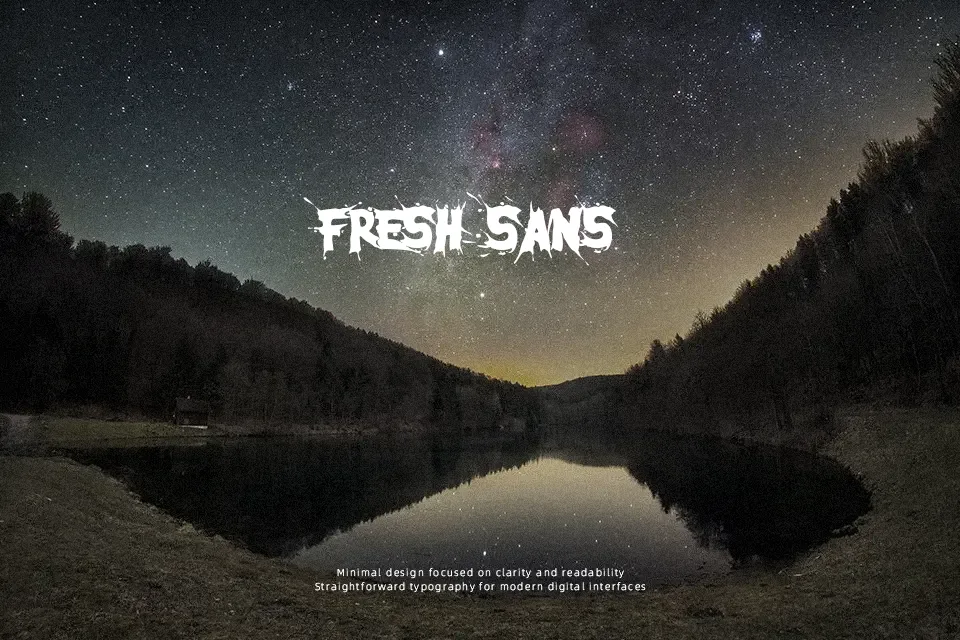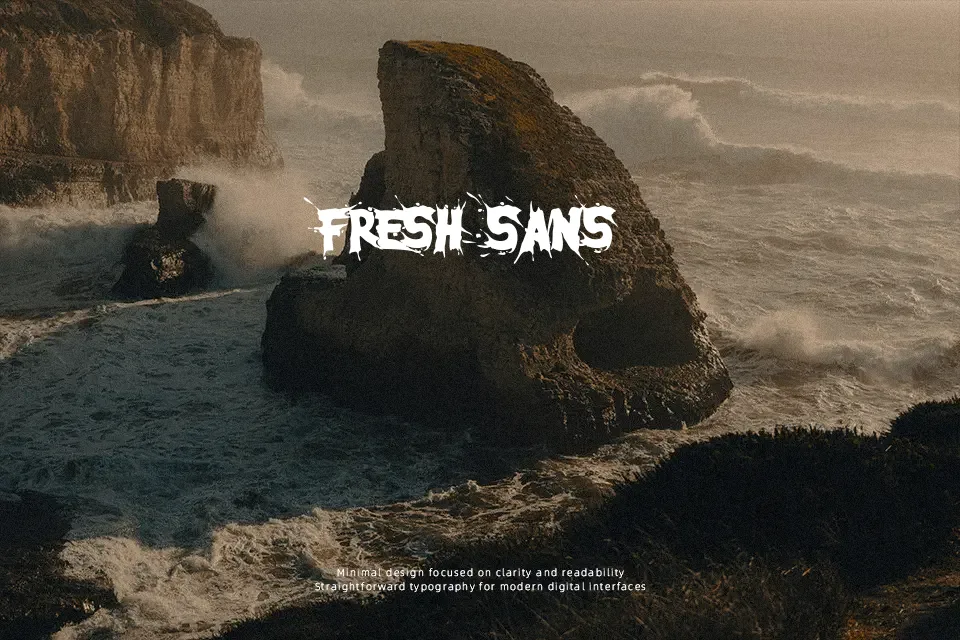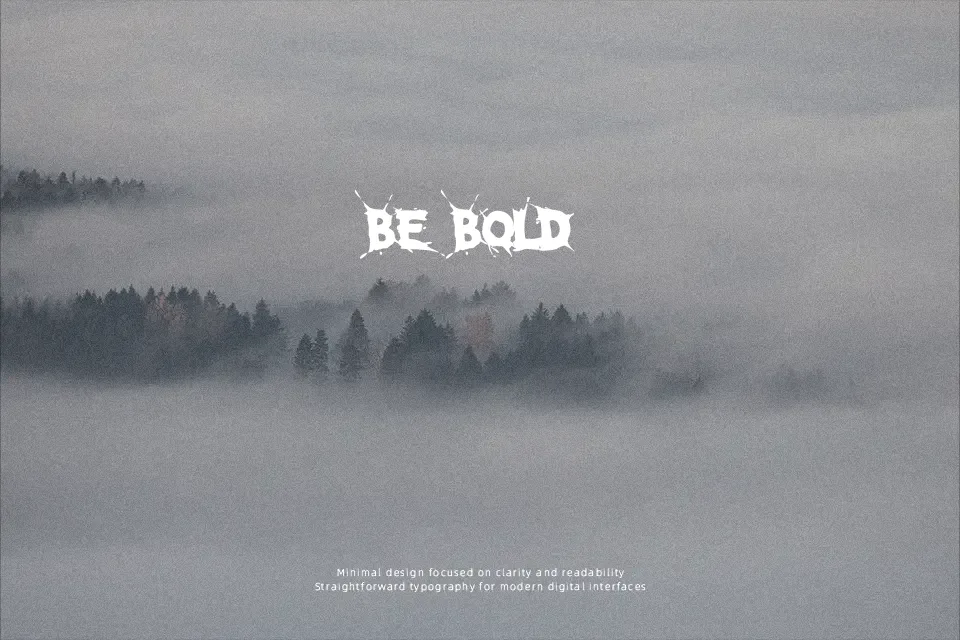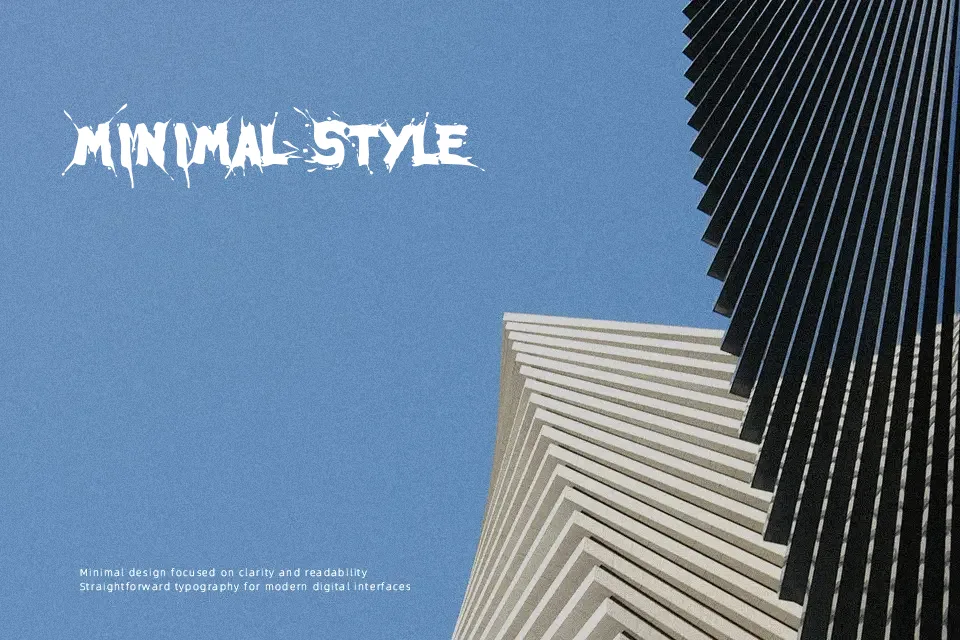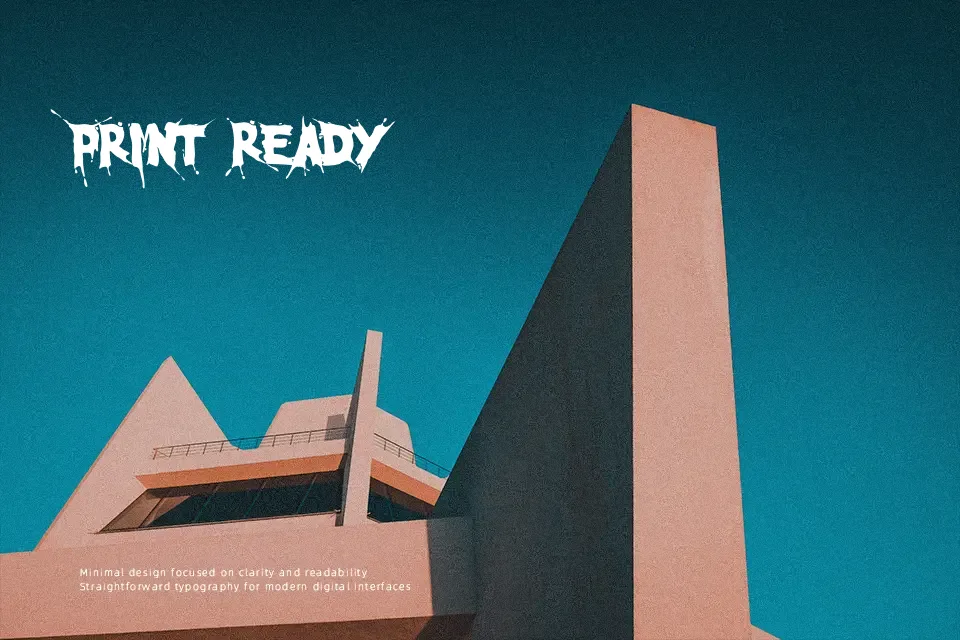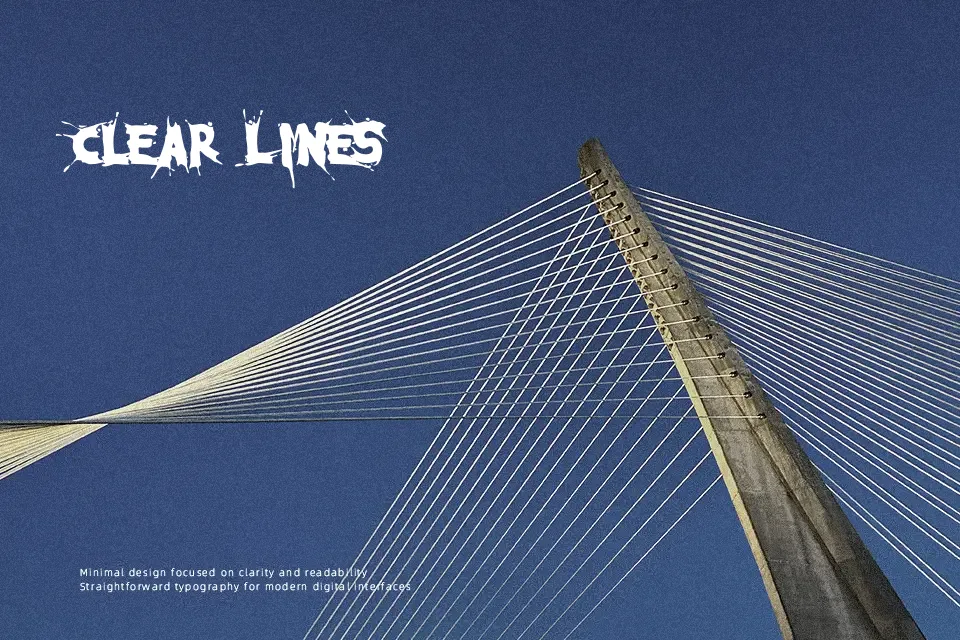
Sengatz Font
Sengatz Font features raw, expressive brush strokes defined by uneven edges, sharp terminals, and intense textural energy across its glyphs. The letterforms exhibit irregular vertical proportions and compact character spacing, generating a dense visual rhythm suited for dramatic titling. Heavy contrast between solid stroke cores and frayed edges gives the design an authentic street graffiti appearance. The bold structures maintain clear visibility in horror movie posters, apparel graphics, and gothic album covers where high impact is necessary. However, the distressed texture and tight spacing reduce legibility in continuous body copy or small interface labels. Large headlines allow the intricate rough details to render with maximum clarity.
Best For: horror movie posters, metal band merchandise, gaming stream overlays, streetwear apparel graphics
Not Ideal For: long paragraph text, mobile user interfaces, corporate annual reports, small product packaging labels
Perfect for film, gaming, and halloween, with a bold and brush style.